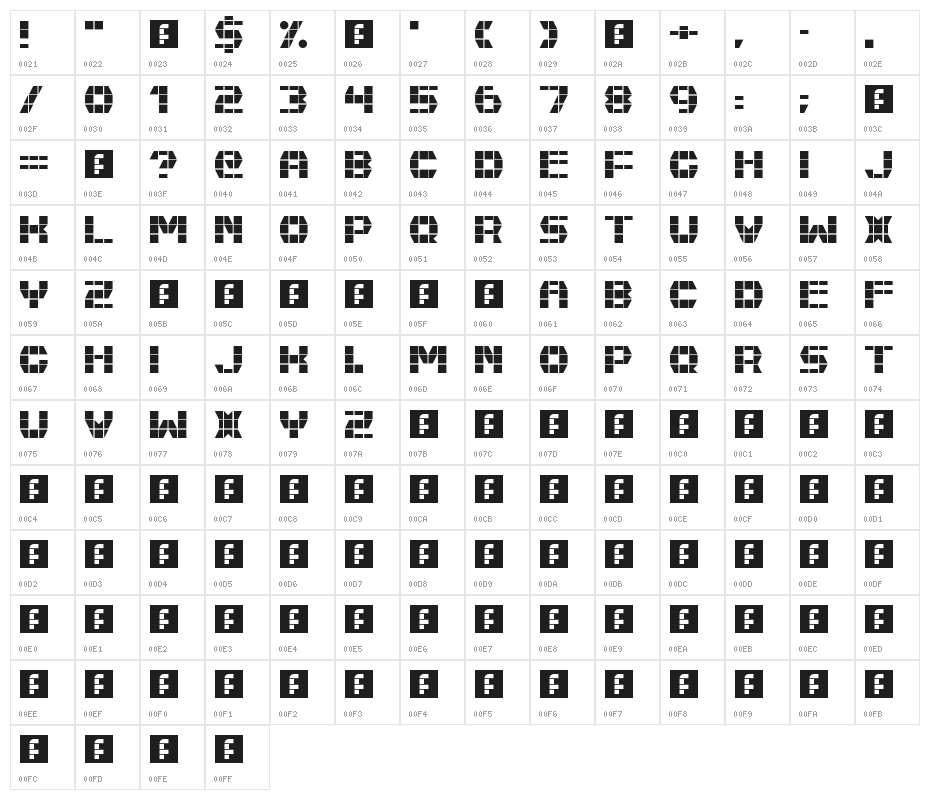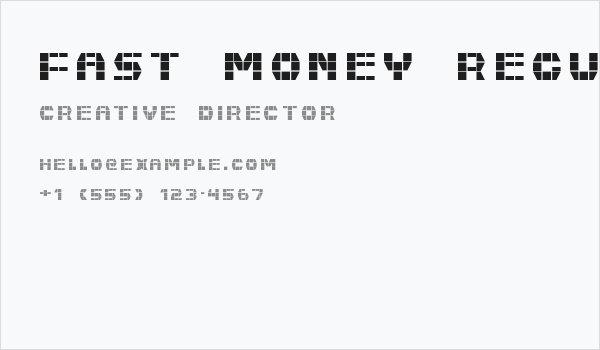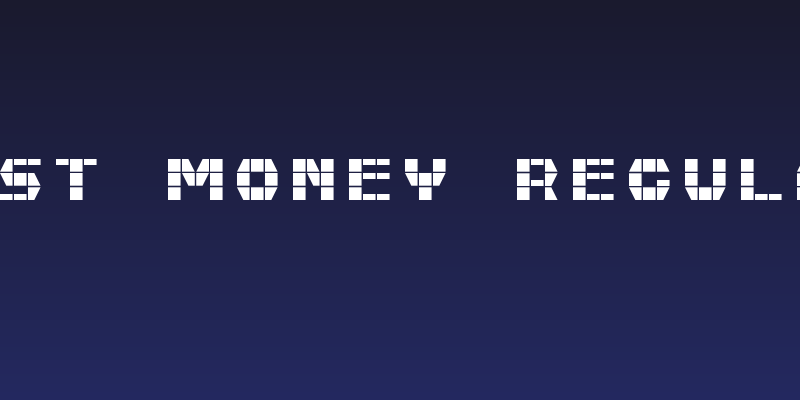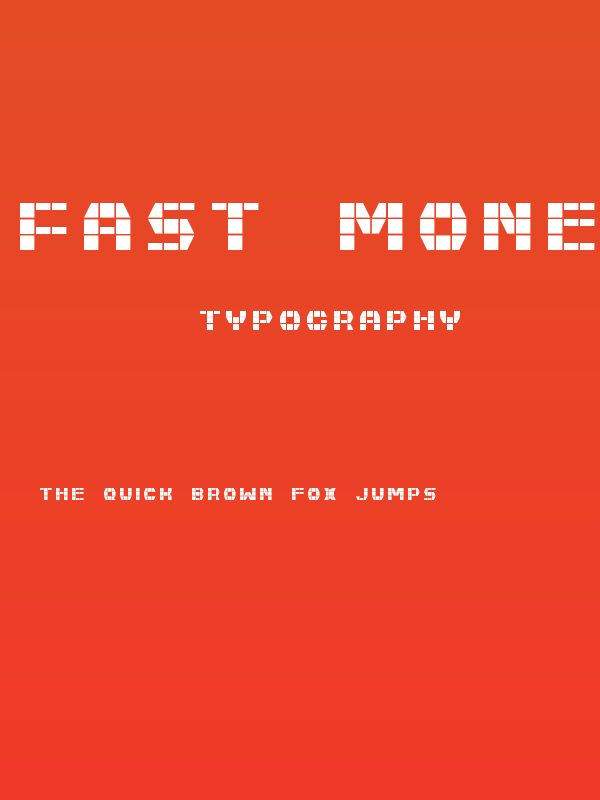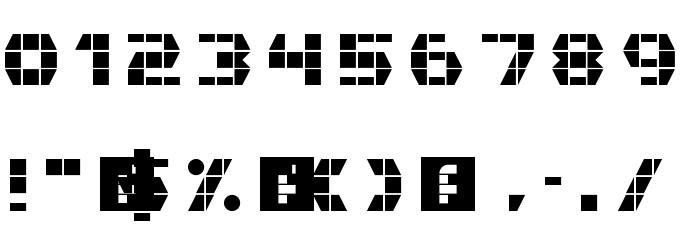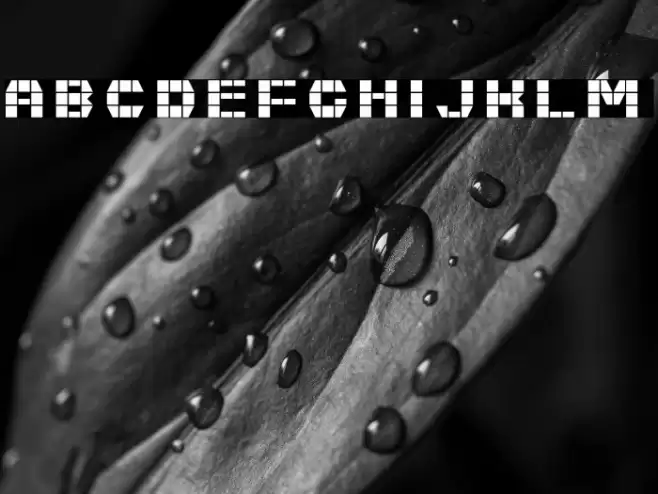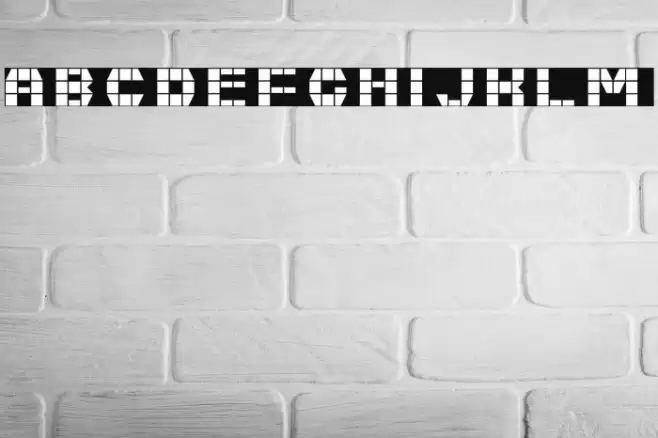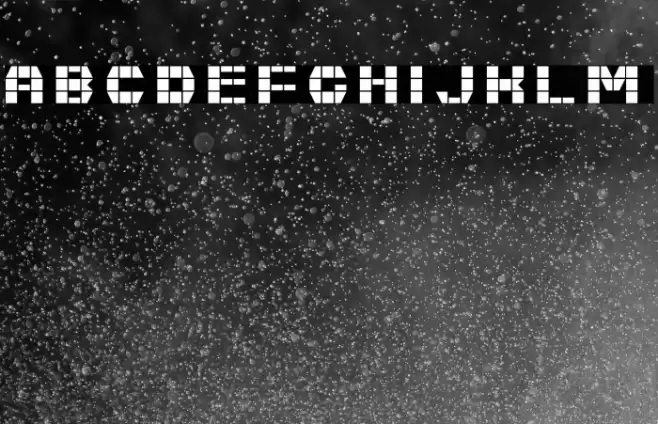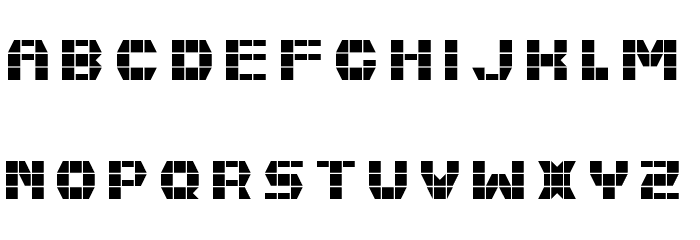
Fast Money Regular Font
Fast Money Regular Description
This font features a bold, geometric design with a distinct grid-like pattern. Each character is composed of solid black segments, creating a digital or pixelated appearance. The style is reminiscent of digital displays or retro video game graphics, with a modern twist. The uppercase and lowercase letters maintain a consistent structure, emphasizing uniformity and balance. Numbers and special characters follow the same design principles, ensuring a cohesive look across all elements. The font's unique aesthetic makes it stand out, offering a futuristic and tech-inspired vibe.
| Proposed Projects | Ideal for tech-related projects, video game graphics, digital displays, and futuristic branding. |